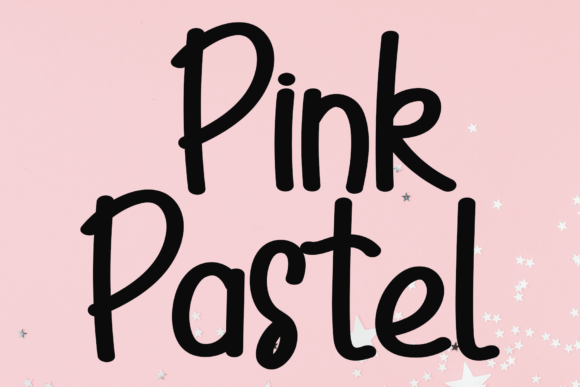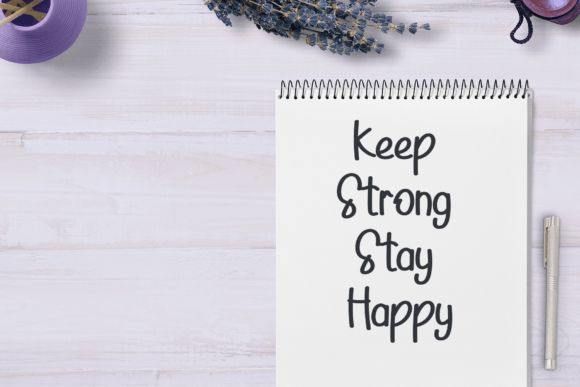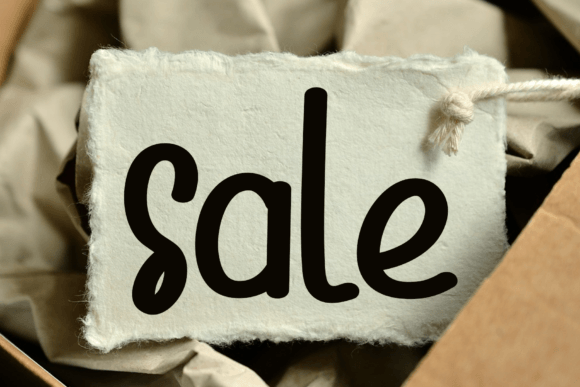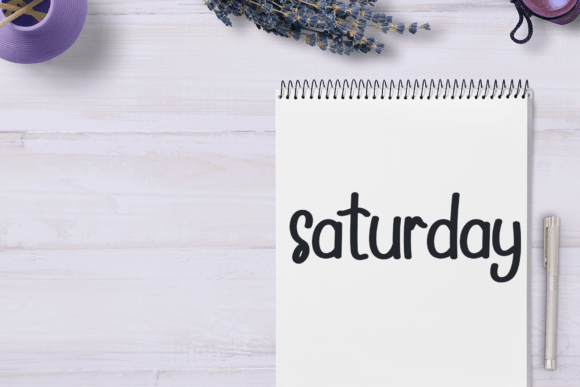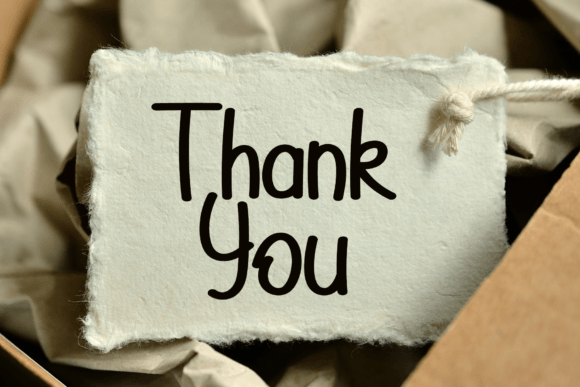
Introducing Grinch Font: The Sweet and Cursive Handwritten Font for Your Design Needs
Are you a designer or crafter looking for a unique and charming font to add a personal touch to your projects? Look no further than Grinch Font, a sweet and cursive handwritten font that’s sure to capture the hearts of your audience. With its gentle and elegant strokes, Grinch Font is the perfect addition to a variety of design ideas, from romantic invitations to playful branding materials.
The Characteristics of Grinch Font
Grinch Font is a beautifully crafted handwritten font that boasts a range of characteristics that make it stand out from the crowd. Its cursive strokes are smooth and flowing, giving it a sense of movement and fluidity that’s perfect for creating dynamic and engaging designs. The font’s letters are also carefully shaped to create a sense of whimsy and playfulness, making it ideal for projects that require a touch of personality.
One of the key features of Grinch Font is its sweetness and innocence. The font’s gentle curves and rounded edges give it a soft and approachable feel that’s perfect for designs that require a touch of warmth and friendliness. Whether you’re creating a brand identity, a wedding invitation, or a social media graphic, Grinch Font is sure to add a joyful and romantic touch to your project.
Uses for Grinch Font
Grinch Font is a versatile font that can be used in a wide range of design projects. Here are just a few ideas to get you started:
- Wedding Invitations: Add a touch of romance and whimsy to your wedding invitations with Grinch Font. Its elegant cursive strokes and playful letters make it the perfect choice for couples who want to create a unique and memorable invitation.
- Branding Materials: Use Grinch Font to create a brand identity that’s playful, friendly, and approachable. Its gentle curves and rounded edges make it perfect for businesses that want to convey a sense of warmth and personality.
- Social Media Graphics: Add a touch of personality to your social media graphics with Grinch Font. Its playful letters and cursive strokes make it perfect for creating engaging and shareable content.
- Stationery: Use Grinch Font to create a range of stationery items, from greeting cards to letterheads. Its elegant cursive strokes and playful letters make it perfect for adding a touch of personality to your correspondence.
Why Choose Grinch Font?
So why choose Grinch Font for your design needs? Here are just a few reasons why this sweet and cursive handwritten font is the perfect choice:
- Unique and Playful: Grinch Font is a unique and playful font that’s sure to capture the hearts of your audience. Its cursive strokes and playful letters make it perfect for designs that require a touch of personality.
- Versatile: Grinch Font is a versatile font that can be used in a wide range of design projects, from wedding invitations to branding materials.
- Elegant and Whimsical: Grinch Font is both elegant and whimsical, making it perfect for designs that require a touch of sophistication and playfulness.
In conclusion, Grinch Font is a sweet and cursive handwritten font that’s perfect for designers and crafters who want to add a touch of personality to their projects. With its gentle curves, rounded edges, and playful letters, Grinch Font is sure to capture the hearts of your audience and add a joyful and romantic touch to your designs. So why not give Grinch Font a try today and see the difference it can make in your design projects?
Whether you’re a seasoned designer or a crafter just starting out, Grinch Font is a must-have font that’s sure to inspire your creativity and bring a touch of whimsy to your designs.